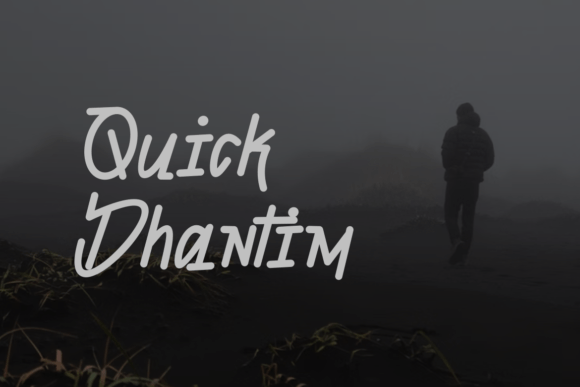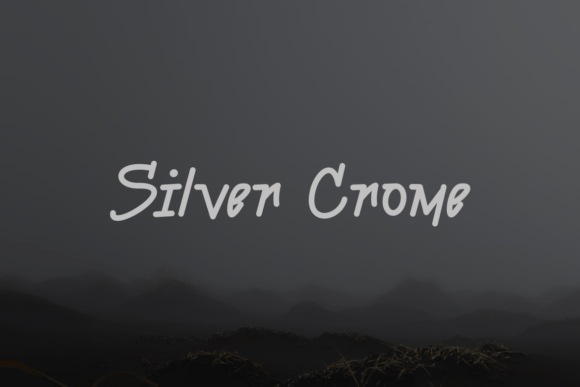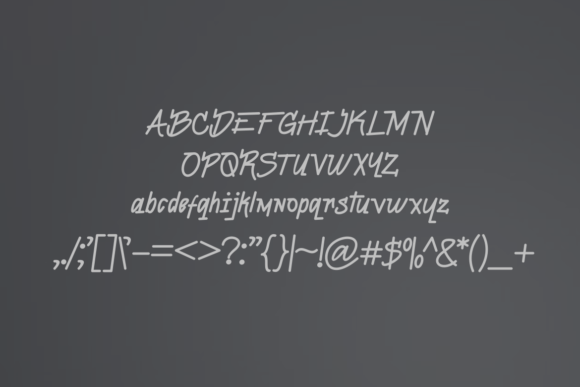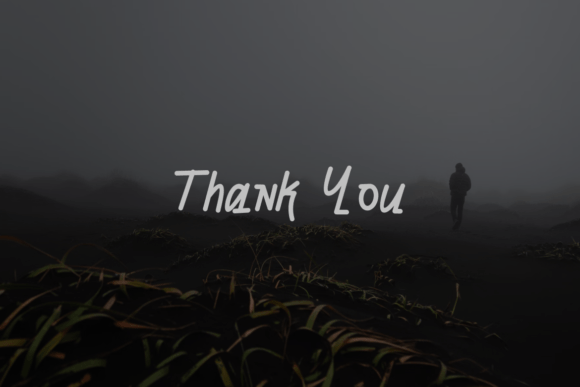
The DhantBhaqa Font: A Designer’s New Best Friend
I’ll never forget the time I was working on a project for a client who needed a unique font to match their brand’s quirky personality. I spent hours scouring the internet for the perfect font, but nothing seemed quite right. That was until I stumbled upon the DhantBhaqa font. ✨ It was love at first sight! The clean lines, the playful vibe, and the versatility of this font made it an instant favorite. In this article, I’ll share my experience with the DhantBhaqa font, its features, and how to make the most of it in your designs.
- ✅ Unique and quirky personality: DhantBhaqa has a distinct character that sets it apart from other fonts.
- ✅ Highly versatile: This font is perfect for a wide range of projects, from posters and social media posts to branding and personal projects.
- ✅ Easy to read: Despite its playful nature, DhantBhaqa remains clear and legible, even at smaller font sizes.
- ✅ OpenType features: This font comes with a range of OpenType features, including glyphs and stylistic alternates, which can add an extra layer of creativity to your designs.
While DhantBhaqa is an excellent font, it’s not without its quirks. ⚠️ One thing to note is that it can be a bit overused in certain contexts, so be mindful of how you use it to avoid clichés. Additionally, some users may find that the font’s uniqueness can make it difficult to pair with other fonts. 🤔
The Backstory of DhantBhaqa
DhantBhaqa was designed with the intention of creating a font that embodies both playfulness and sophistication. The designer aimed to craft a typeface that could easily transition between digital platforms and print materials, making it a versatile tool for creatives. The inspiration came from a mix of traditional typography and modern digital trends, resulting in a font that feels both fresh and timeless.
Q: What makes DhantBhaqa unique?
A: DhantBhaqa’s uniqueness comes from its blend of clean lines and playful vibe, making it suitable for a wide range of creative projects.
Q: Does DhantBhaqa support OpenType features?
A: Yes, DhantBhaqa comes with OpenType features, including glyphs and stylistic alternates, which can enhance your typography.
Q: Is DhantBhaqa suitable for body text?
A: While DhantBhaqa is primarily designed for headlines and titles, it can be used for body text in certain contexts. However, its readability may decrease at very small font sizes.